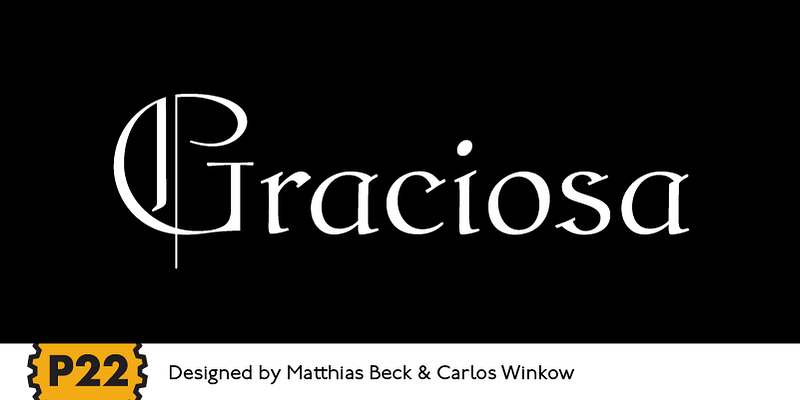
P22 Graciosa Font Free Download is an elegant and refined script typeface that captures the beauty of classic calligraphy with a modern touch. Featuring smooth, flowing strokes and graceful curves, this font is ideal for projects that require a touch of sophistication and charm, such as wedding invitations, branding, greeting cards, and high-end editorial design.
P22 Graciosa Font is designed to evoke a sense of elegance and warmth, making it perfect for projects that aim to convey a personal and refined feel. Whether you're working on custom invitations, luxury packaging, or any design that requires a graceful, handwritten style, this font adds a timeless beauty to your typography.